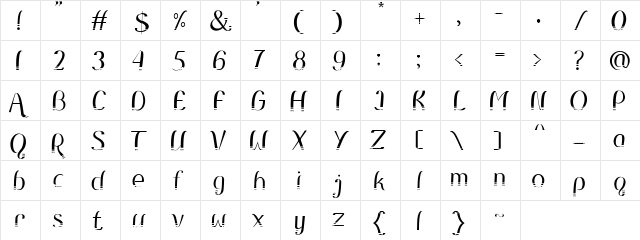
Remo Regular Font Preview
Remo Regular
Remo Regular Font Details
Design Context for Remo Typeface
Remo is a composed and adaptable typeface that performs quietly and consistently across a wide range of design contexts.
Pro Tip: Use Remo in both headline and body roles to test its range before committing to a single application.